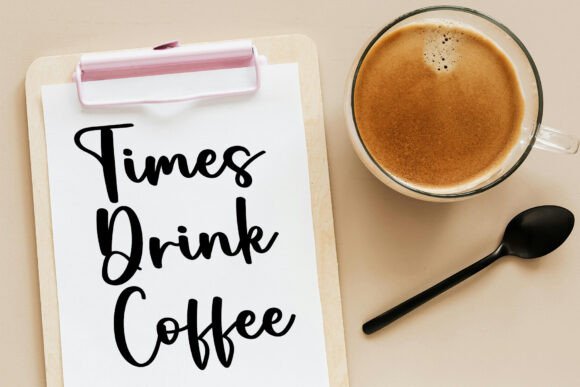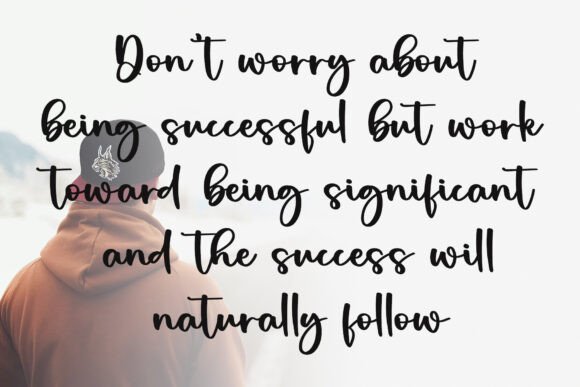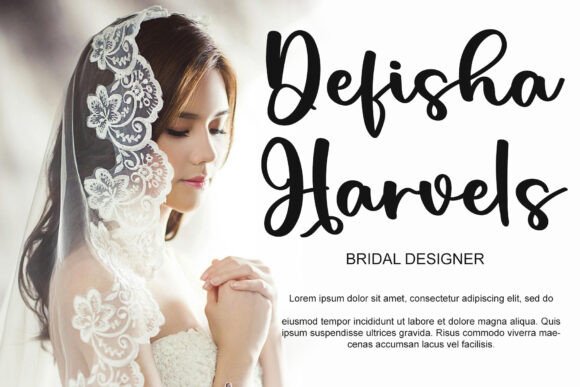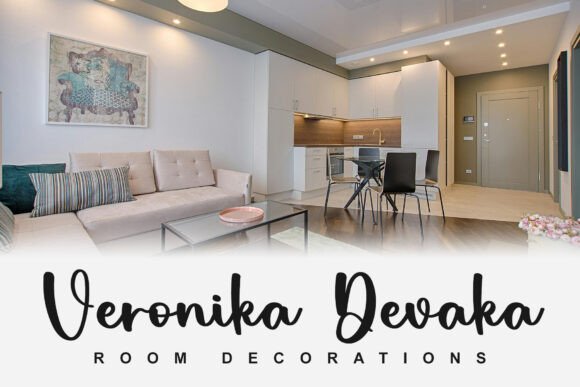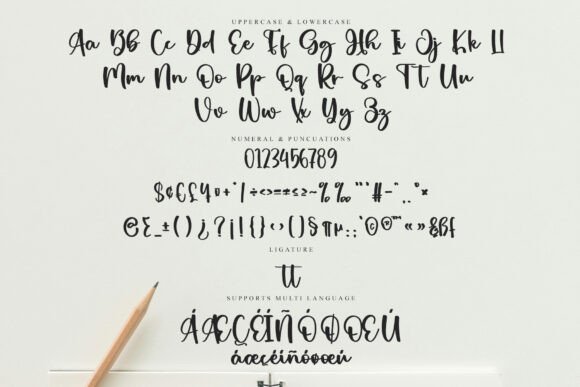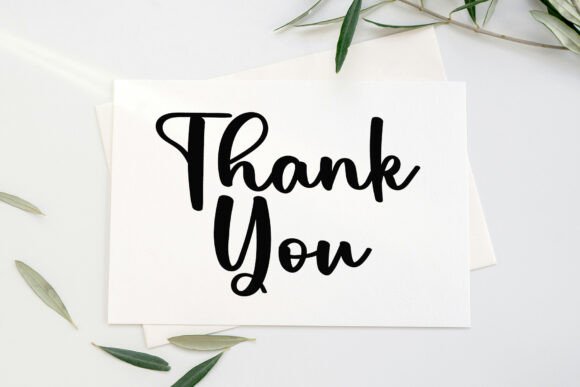
Introducing Hearty Signature: The Magical Handwritten Font for Elegant Designs
Are you a designer, crafty DIY enthusiast, or social media influencer looking for a font that can add a touch of sophistication and elegance to your creative projects? Look no further than Hearty Signature, a beautiful handwritten font designed to transform your ideas into stunning works of art. In this article, we’ll explore the features and benefits of Hearty Signature, and how it can elevate your designs, Instagram posts, and DIY projects to the next level.
The Story Behind Hearty Signature
Hearty Signature is a carefully crafted font that boasts a unique, magical quality. Its handwritten style is both personal and refined, making it perfect for a wide range of applications, from formal invitations and event branding to social media graphics and DIY crafts. The font’s creator aimed to design a typeface that would bring a sense of warmth and character to any design, and Hearty Signature certainly delivers.
Key Features of Hearty Signature
- Handwritten Elegance: Hearty Signature features a beautiful, flowing script that mimics the look of expert calligraphy. Its elegant strokes and carefully designed letterforms make it perfect for creating eye-catching headlines, titles, and quotes.
- Magical Flair: What sets Hearty Signature apart is its whimsical, magical quality. The font includes a range of special characters, swashes, and ligatures that can be used to add a touch of personality to your designs.
- Versatility: Hearty Signature is an incredibly versatile font that can be used for a wide range of projects, from formal events and branding to social media graphics and DIY crafts.
Uses for Hearty Signature
Hearty Signature is an incredibly versatile font that can be used in a variety of contexts. Here are some ideas to get you started:
- Instagram Graphics: Add a touch of elegance to your Instagram posts and stories with Hearty Signature. Use it to create eye-catching headlines, quotes, and captions that will make your followers take notice.
- DIY Projects: Hearty Signature is perfect for DIY enthusiasts who love to create handmade cards, invitations, and crafts. Use it to add a personal touch to your projects and make them truly special.
- Event Branding: Hearty Signature is an excellent choice for event branding, including weddings, parties, and corporate events. Use it to create elegant invitations, signage, and marketing materials that will set the tone for your event.
- Logo Design: Hearty Signature can be used to create beautiful, elegant logos for businesses, blogs, and personal brands.
Tips for Using Hearty Signature
Here are some tips for getting the most out of Hearty Signature:
- Experiment with Different Sizes and Colors: Hearty Signature looks great in a range of sizes and colors. Experiment with different combinations to find the one that works best for your design.
- Mix and Match with Other Fonts: Hearty Signature pairs well with a range of other fonts. Try combining it with a clean sans-serif font for a striking contrast.
- Use Swashes and Ligatures: Hearty Signature includes a range of special characters, swashes, and ligatures that can be used to add a touch of personality to your designs.
Hearty Signature is a truly special font that can add a touch of elegance and sophistication to any design. Whether you’re a designer, DIY enthusiast, or social media influencer, this magical handwritten font is sure to become a favorite. With its versatility, ease of use, and range of features, Hearty Signature is the perfect choice for anyone looking to create beautiful, eye-catching designs.